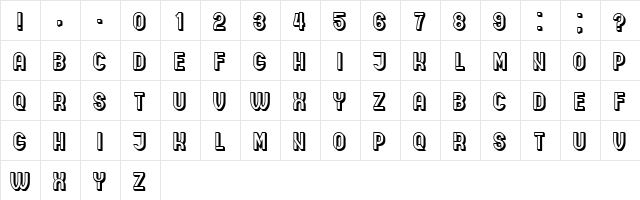
Indirect Implication 3D Regular
Design Context for Indirect Implication 3D Typeface
Indirect Implication 3D offers clean, dependable letterforms without strong stylistic allegiance, making it a practical choice for designers who need flexibility.
Pro Tip: Pair Indirect Implication 3D with a font of contrasting weight or personality to build a more expressive typographic hierarchy.